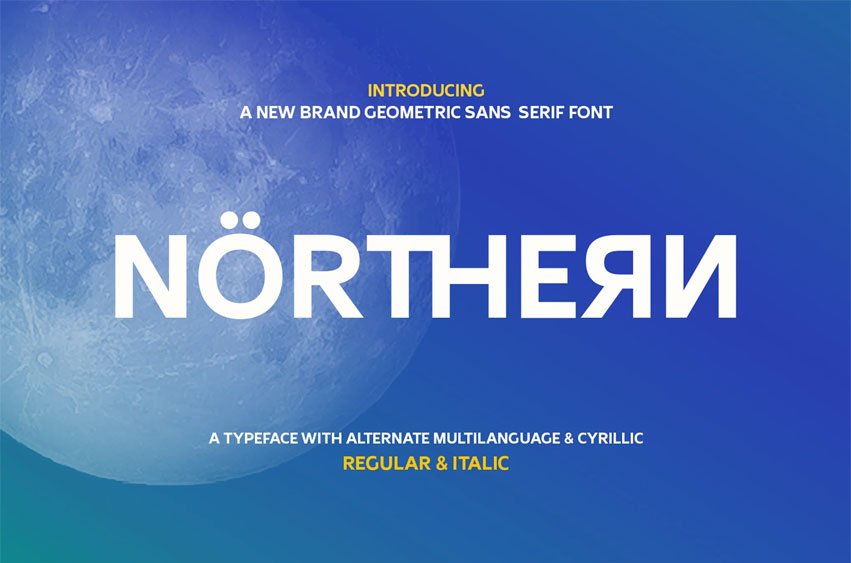
Nothern Font is a modern sans-serif font with a clean, geometric, and functional design. Created to be bold yet flexible, this font combines balanced letterforms with subtle details that give it a professional and contemporary feel.